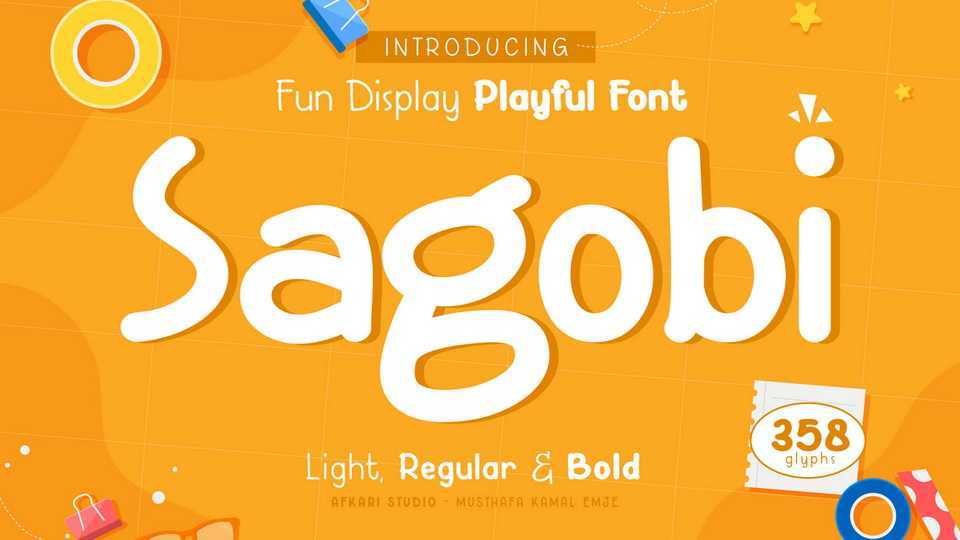
Download Sagobi font, a fun display playful typeface created with a natural handwritten type. Sagobi will turn any creative idea into a true piece of art and ready to make your design looks great and fun.
Designer: Afkari Studio